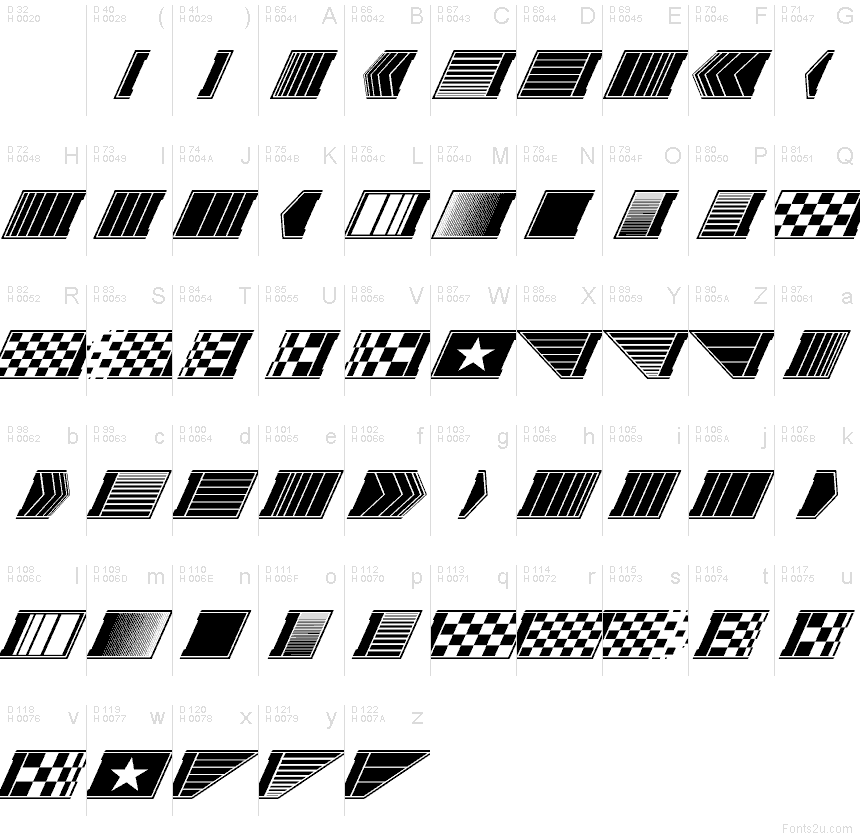
Gear6-Elements
Gear6 Elements font by Youssef Habchi is a free racing dingbats font built for motion-heavy graphics. Inside the Gear6 family, it delivers slick chevrons, slashed panels, and striped bars that read like speed made visible—crisp, high-contrast shapes you can drop in to signal acceleration, direction, or impact. The consistent widths and repeatable rhythm make it quick to scale into borders, badges, and momentum markers without fuss.
Using Gear6 Elements, you can juice up motorsport posters, pit-lane signage, car wraps, esports banners, jersey graphics, and social promos in seconds. It shines on dark backgrounds, where those dense stripes punch through like headlamps at night. Pair this free font with a bold condensed sans for headlines, then use the dingbats as dividers, corner kicks, or start/finish cues.